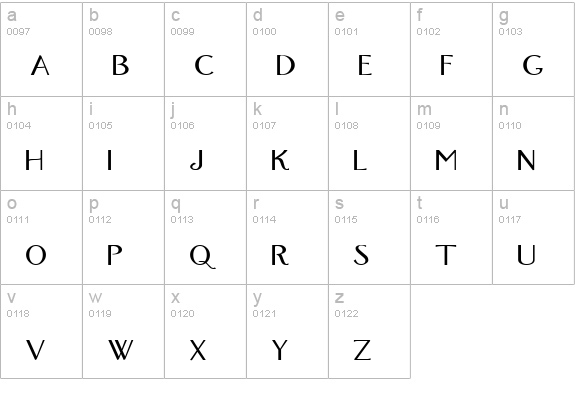
Fox font is a modern and stylish typeface that exudes elegance and sophistication. With its sleek lines and graceful curves, this font is perfect for adding a touch of class to your designs. Whether you're working on a logo, branding materials, or a website, Fox font will bring a sense of refinement to your project. The best part? Fox font is completely free to download at FontsMarket.com! That's right, you can access this gorgeous font at no cost and use it to elevate your designs without breaking the bank. Don't miss out on this fantastic opportunity to enhance your creative work with the stunning Fox font. Download it today and start adding a touch of luxury to your projects!